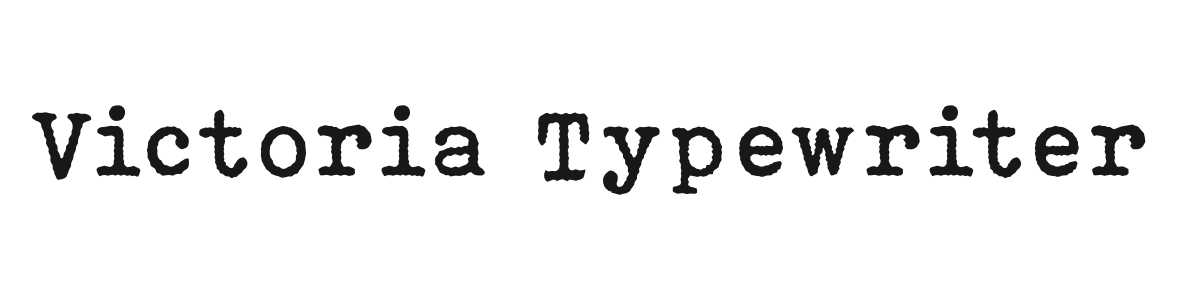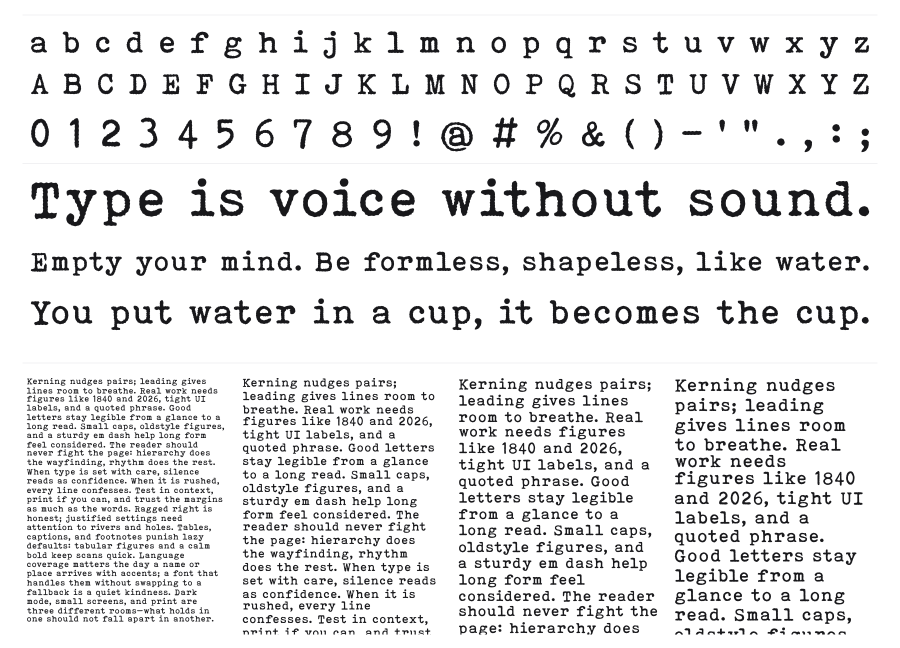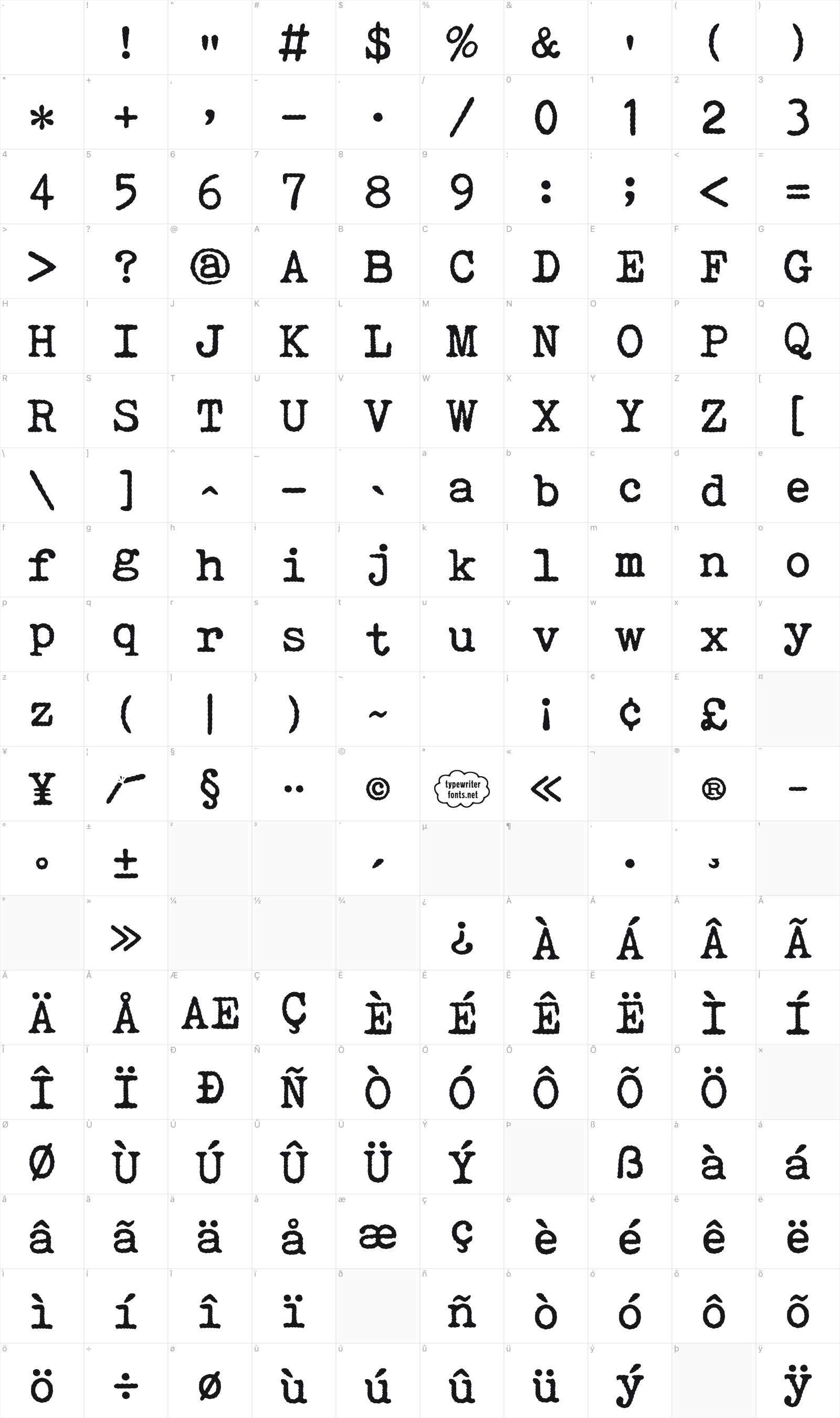
Victoria Typewriter
Victoria Typewriter is a textured typewriter font created by Lukas Krakora, capturing the worn charm of mid-century mechanical type. The ink-pressed irregularity feels genuinely analog rather than artificially aged, giving it a lived-in authenticity. Strong for editorial headlines, retro branding, and any project that needs a literary or journalistic edge.